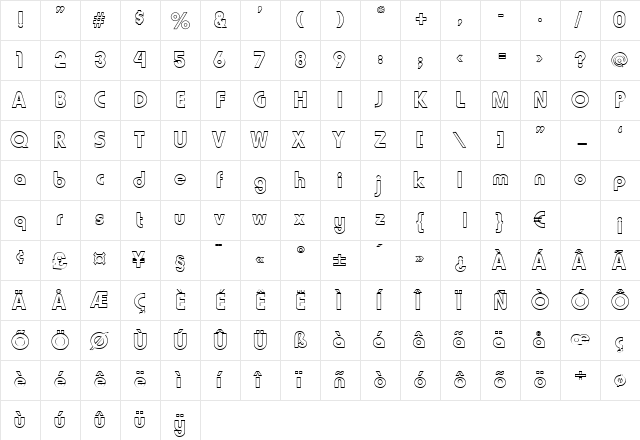
CremonaOpen Regular
Design Context for CremonaOpen Typeface
CremonaOpen offers clean, dependable letterforms without strong stylistic allegiance, making it a practical choice for designers who need flexibility.
Pro Tip: Use CremonaOpen in both headline and body roles to test its range before committing to a single application.